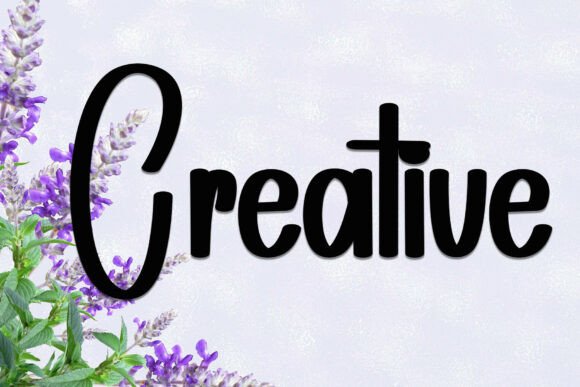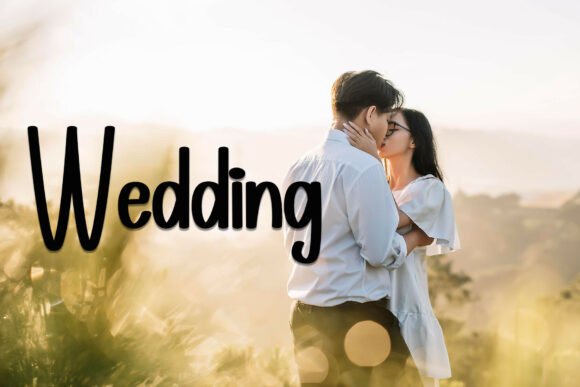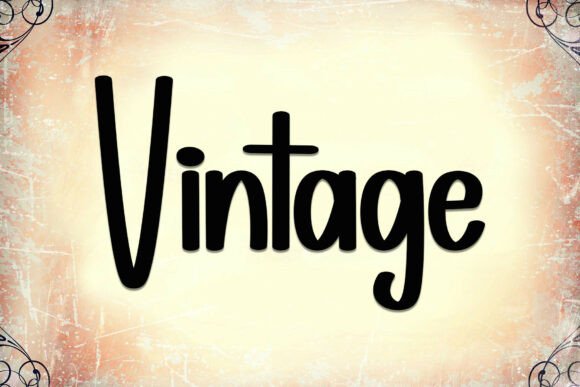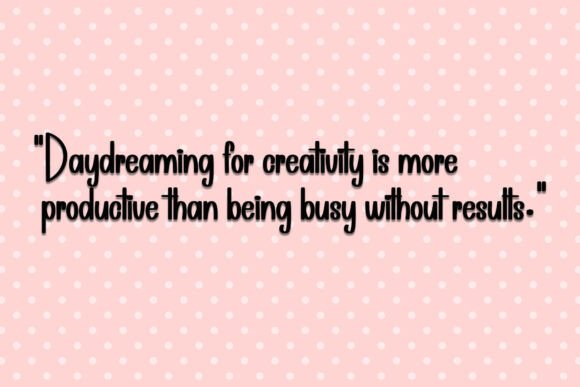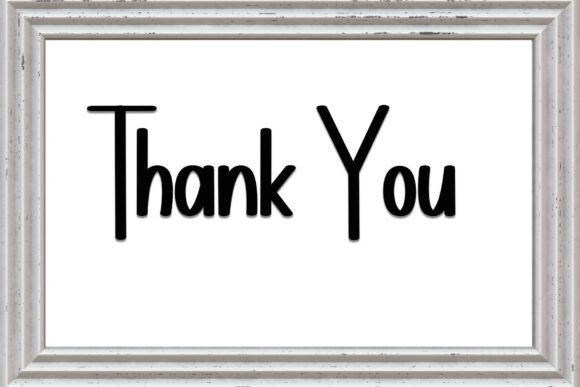
The Perfect Blend of Classic Elegance and Modern Flair
Have you ever found yourself staring at a blank canvas, waiting for the perfect font to bring your design to life? That’s exactly what happened to me when I discovered the Bigday Font – a game-changing, handwritten font that instantly elevates any project to new heights.
The Bigday Font is a masterful blend of timeless classic calligraphy and contemporary style, making it the perfect addition to any design project. With its impeccable form and effortless charm, this font is sure to add a touch of elegance and sophistication to your work. As a designer, you know how hard it is to find a font that truly sets your projects apart – but with Bigday Font, you can rest assured that your designs will stand out from the crowd.
Bigday Font Key Features
- Unique Characteristics: Bigday Font features a unique blend of modern and vintage elements, with clean lines, geometric shapes, and subtle texture, making it ideal for creating eye-catching designs.
Bigday Font Review
- The Bigday Font is incredibly versatile and can be used for a wide range of projects, from posters to business cards.
- The font’s modern and clean design makes it perfect for creating a sleek and professional look.
- The font is highly legible, even at smaller font sizes, making it a great choice for projects that require a lot of text.
- The Bigday Font is not suitable for projects that require a lot of bold or italic text, as it can become difficult to read.
- The font may not be the best choice for projects that require a lot of complex typography, as it can become overwhelming.
- The font’s design can make it difficult to pair with certain colors or backgrounds, so it’s essential to choose a color scheme that complements the font.
Overall, I’m impressed with the Bigday Font. While it has some limitations, its versatility and modern design make it a great choice for many projects. With some careful planning and consideration, the Bigday Font can be a fantastic addition to your design toolkit.
Practical Application Guide for Bigday Font
Tips for Getting the Most Out of Bigday Font
Bigday Font is a bold and modern font, making it perfect for headings and titles. To get the most out of it, use it sparingly and in combination with other fonts to create visual interest.
Alternatives to Bigday Font
Playfair Display is a luxurious and elegant serif font, perfect for creating a sophisticated and high-end look. It’s ideal for use in luxury brands, weddings, and high-end advertising campaigns. Compared to Bigday Font, Playfair Display is more ornate and has a more classic feel, making it suitable for formal and elegant designs.
Montserrat is a modern sans-serif font that’s clean, simple, and highly legible. It’s perfect for use in digital products, such as apps, websites, and mobile interfaces. Compared to Bigday Font, Montserrat is more minimalist and has a more urban feel, making it suitable for modern and tech-savvy designs.
Lato is a clean and modern sans-serif font that’s highly legible and versatile. It’s perfect for use in digital products, such as websites, apps, and mobile interfaces. Compared to Bigday Font, Lato is more minimalist and has a more neutral feel, making it suitable for a wide range of designs, from modern to traditional.